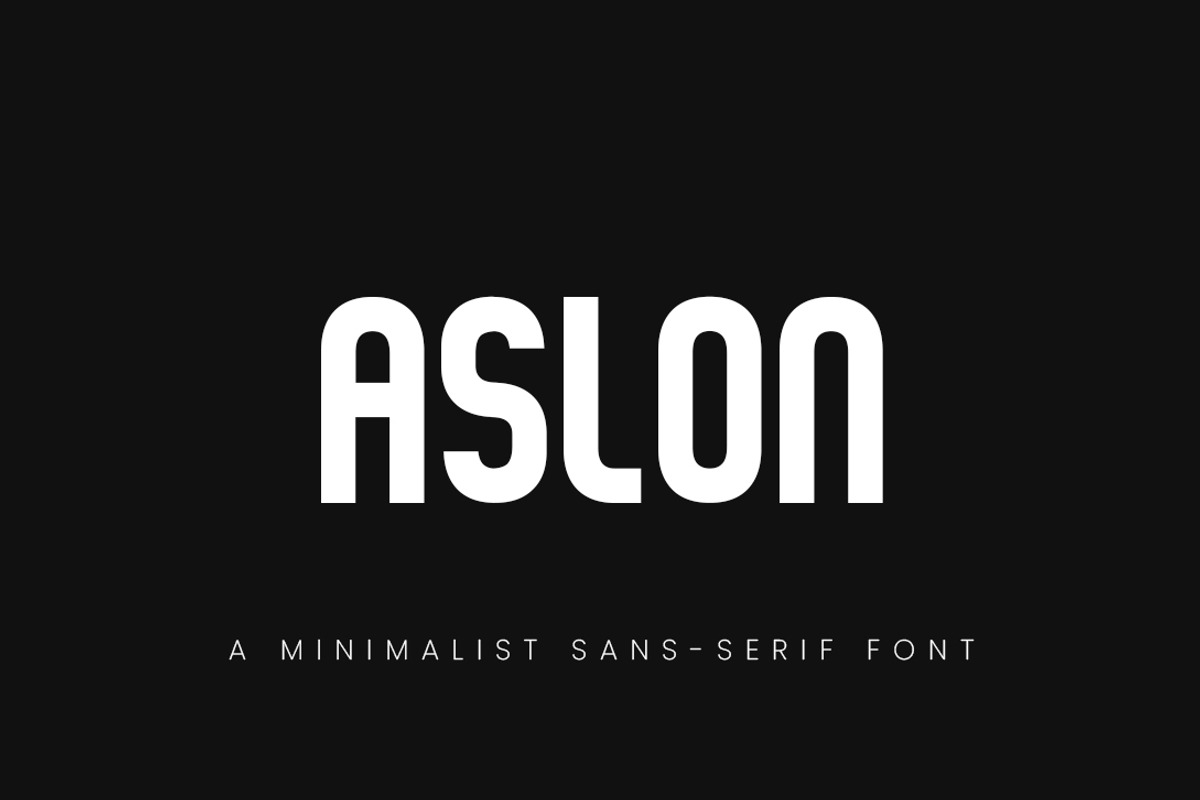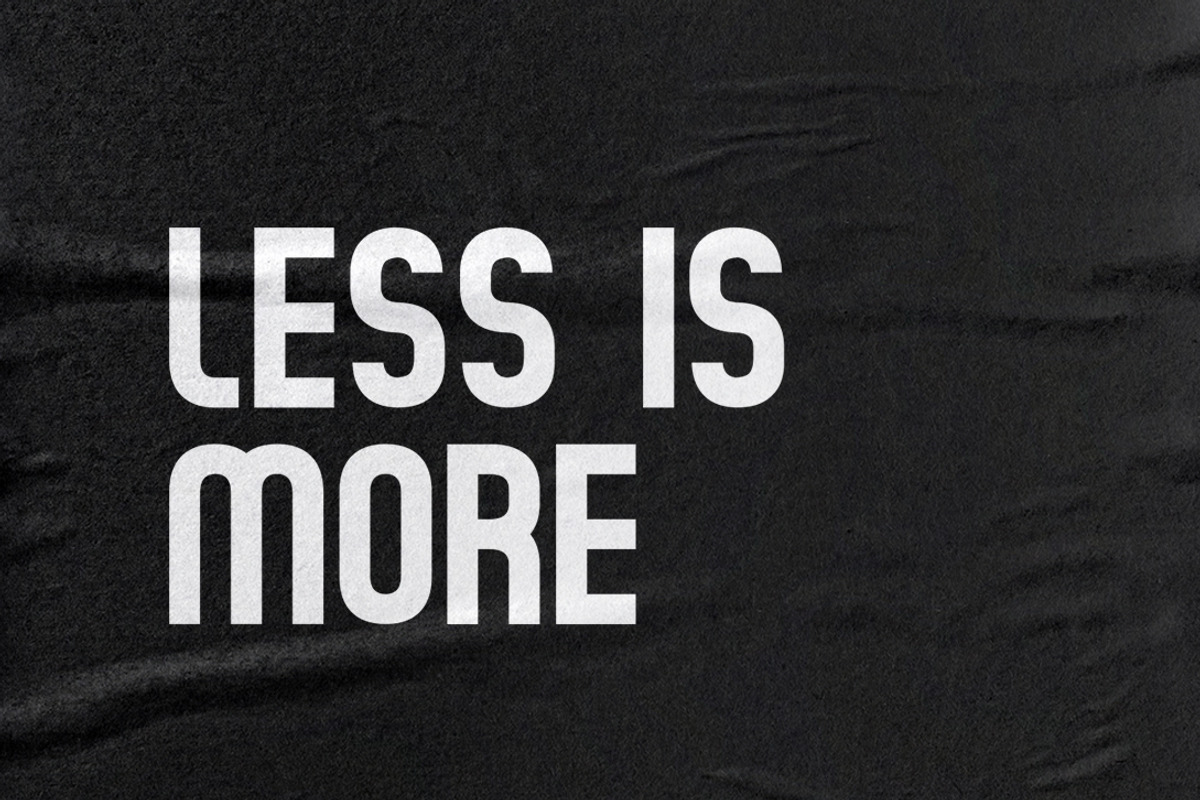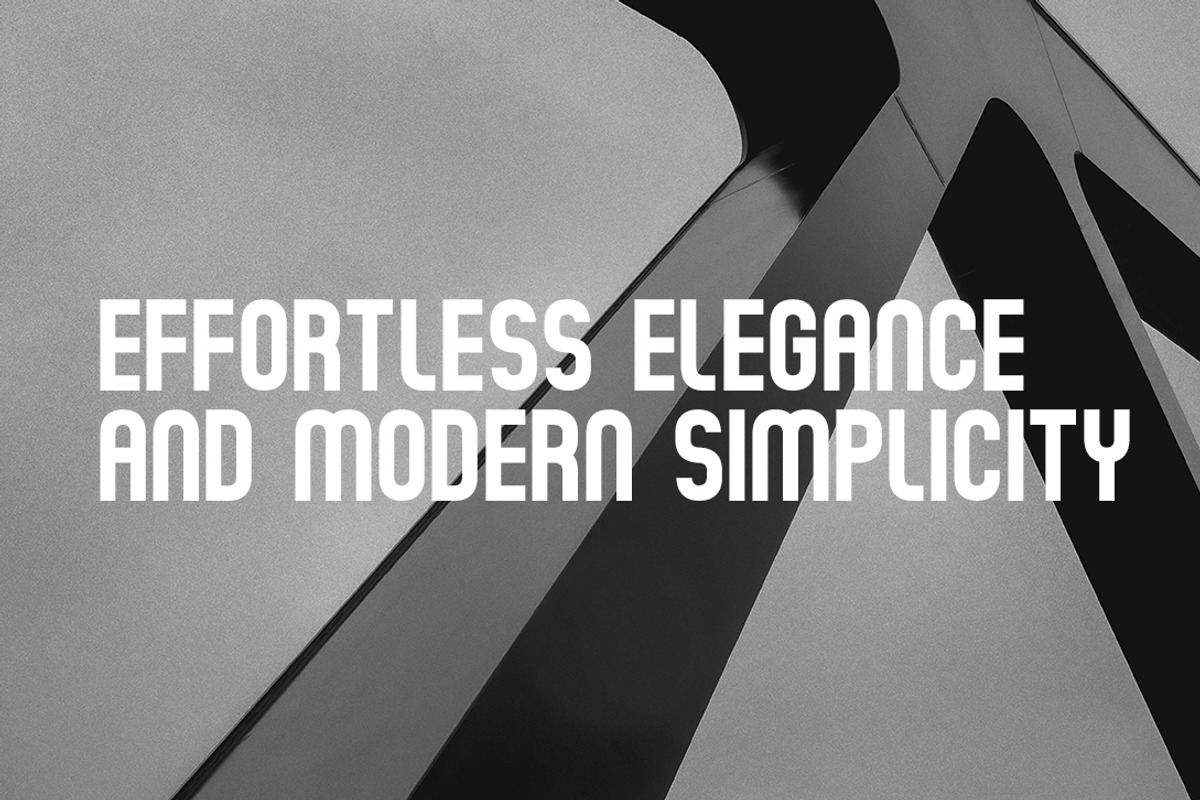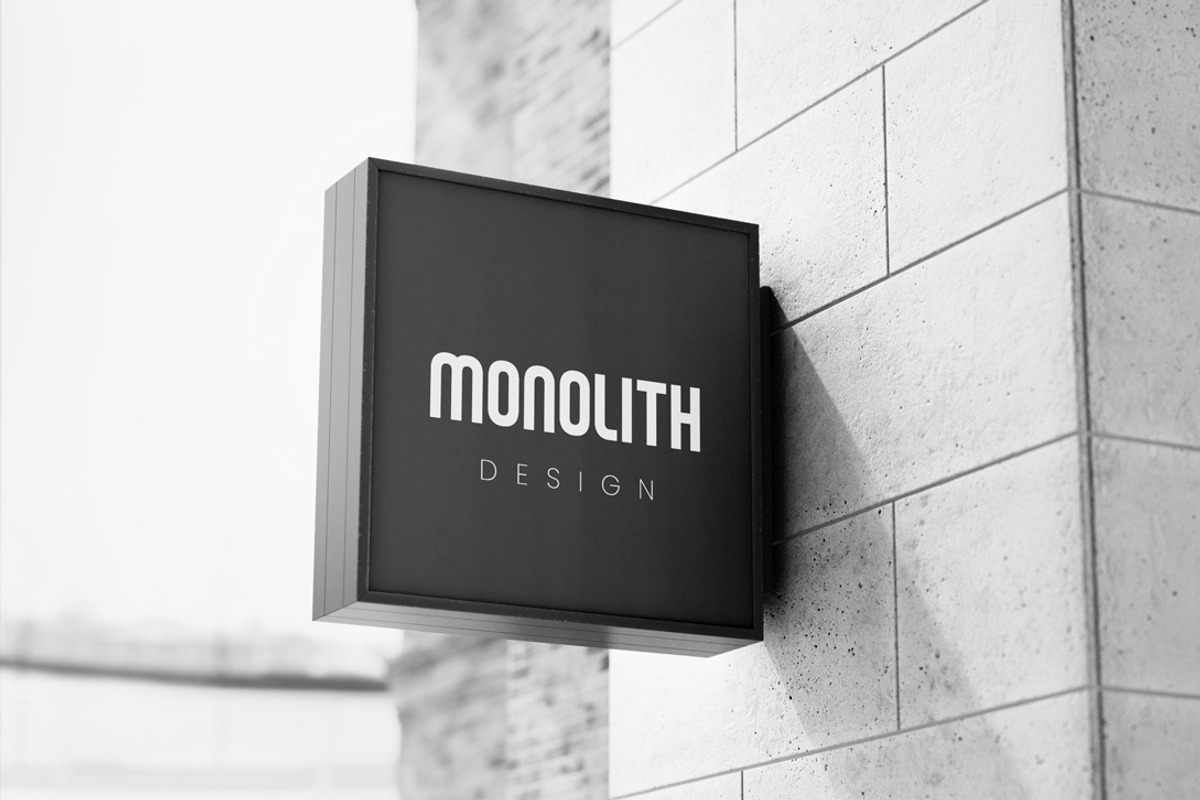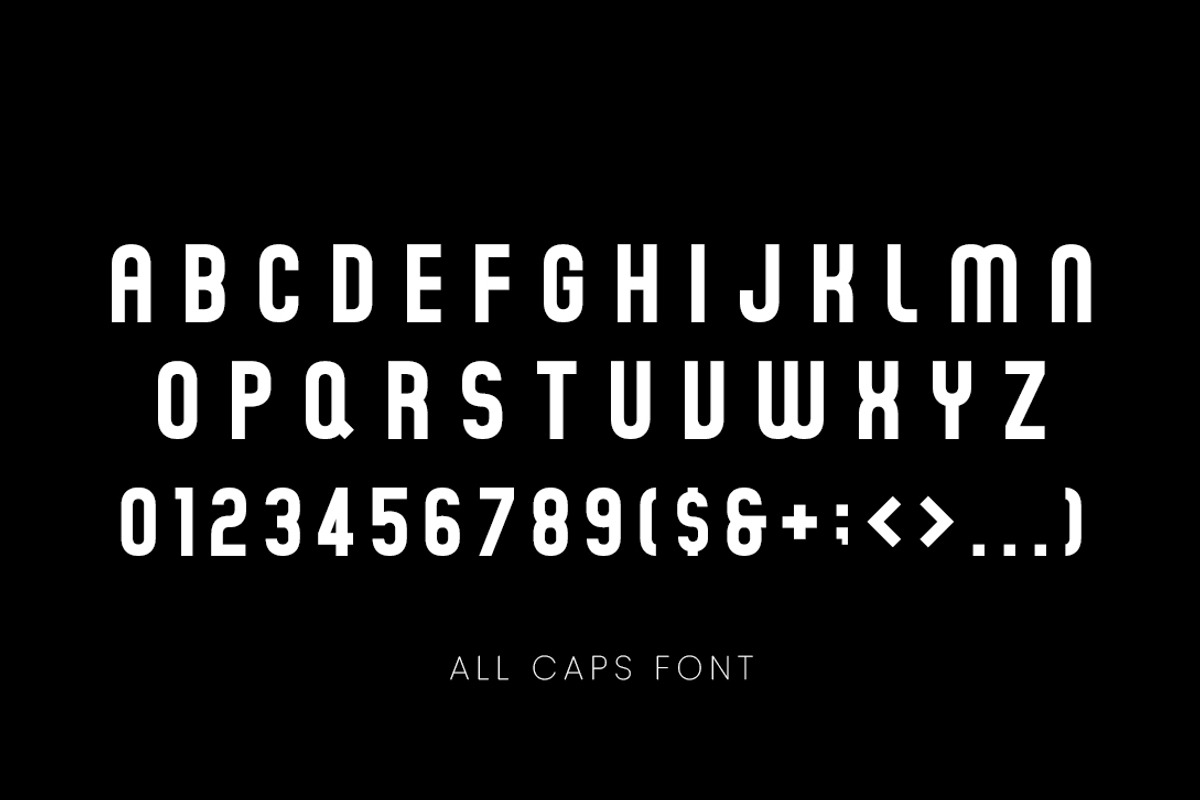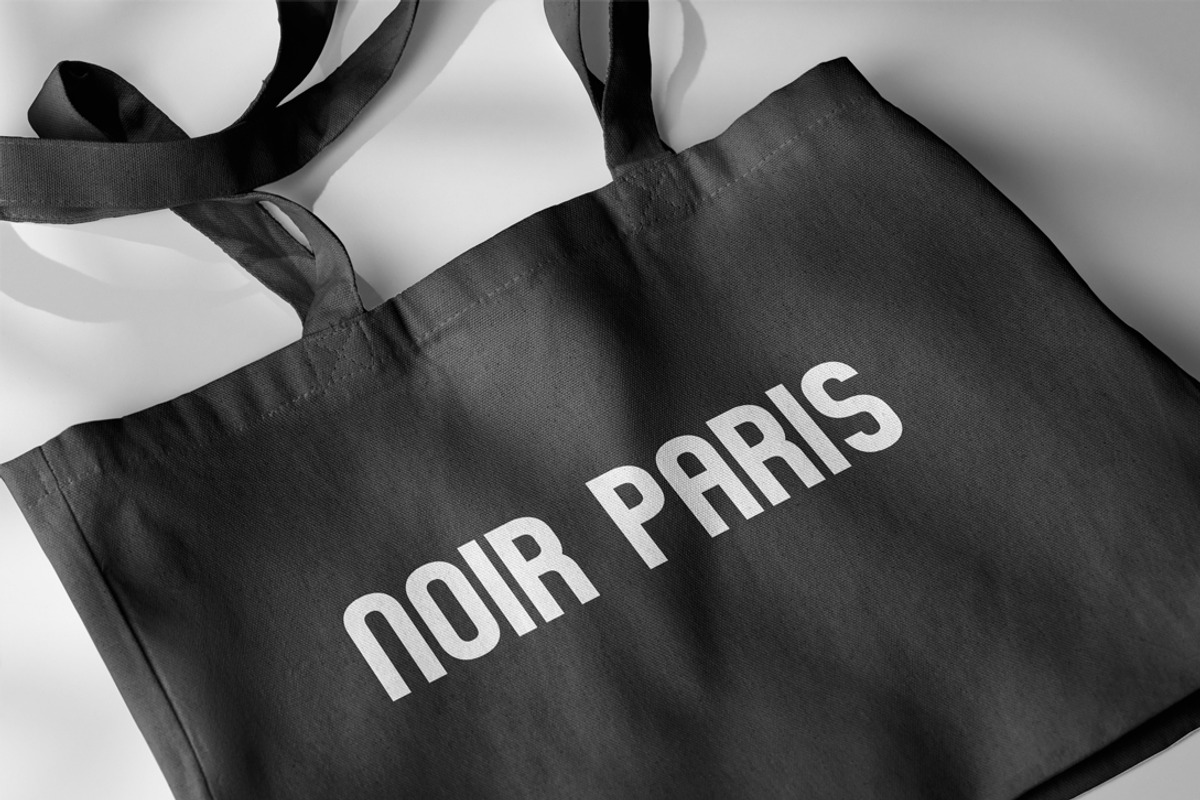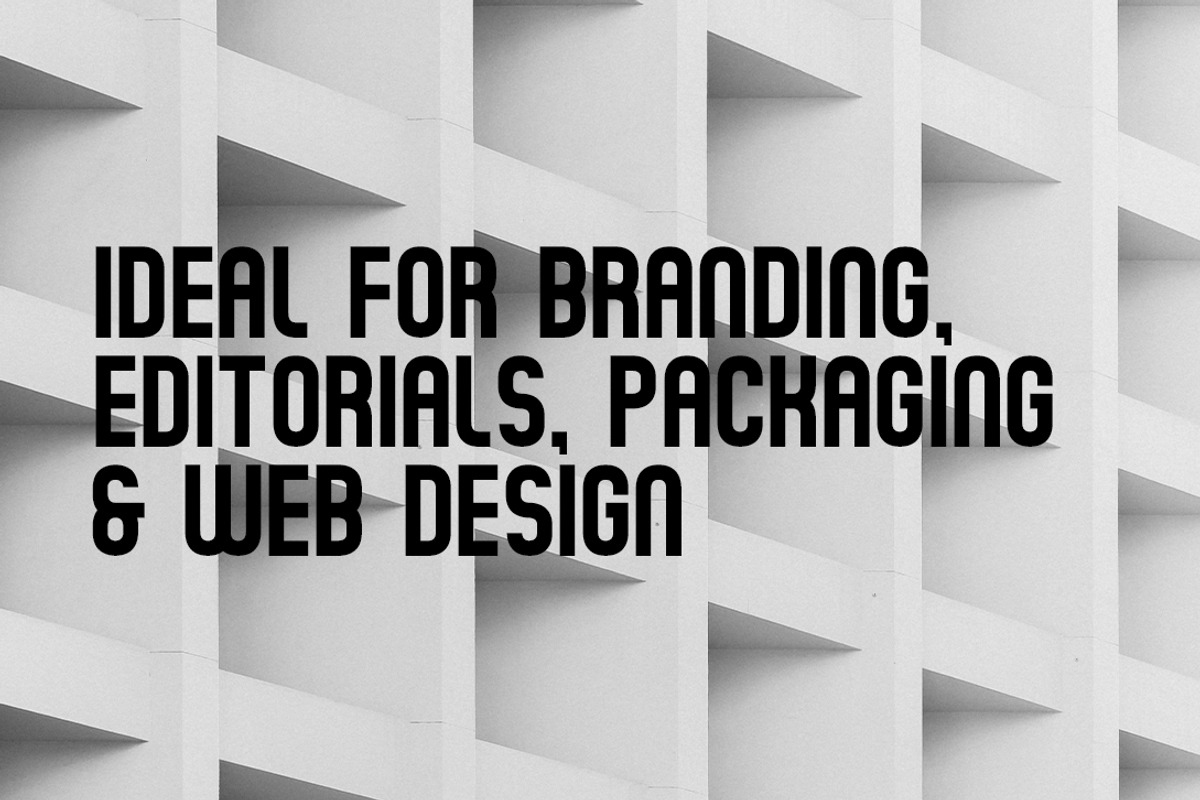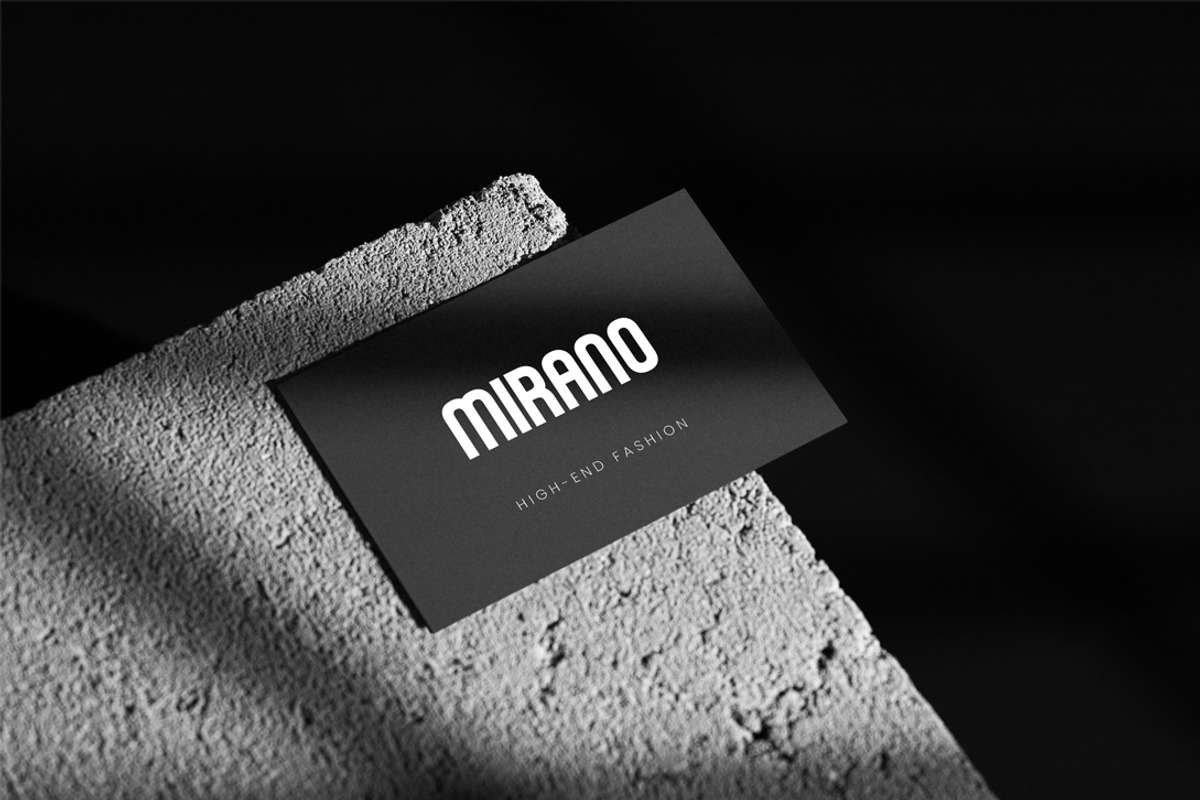
Aslon - Logo Font
ASLON is a refined sans-serif typeface that embodies simplicity, precision and elegance. Designed for modern creatives, this font offers clean geometric lines, balanced proportions, and a timeless aesthetic that seamlessly adapts to both digital and print applications.
Why Choose ASLON? Minimalist & Versatile – Perfectly suited for branding, editorial design, packaging, web design, and UI/UX projects. Flawless Geometry – Every curve and letterform is crafted with mathematical precision, ensuring a sophisticated and high-end feel. Timeless Elegance – A font that enhances luxury brands, fashion, architecture, and modern design with its understated beauty. Designed for Readability – Whether for headlines or body text, ASLON delivers clarity and harmony in any layout. Multiple Formats for Any Project – Comes in OTF, TTF, and WOFF formats, ready for use in both print and digital environments.
Perfect for: Luxury Branding – Logos, packaging, corporate identities Editorial & Magazine Layouts – Clean typography for print & digital media Modern Websites & UI/UX Design – Stylish and readable Minimalist Aesthetic Projects – Perfect balance of form and function
ASLON is more than just a font – it’s a statement of style and sophistication. Elevate your designs with its effortless elegance and modern simplicity.